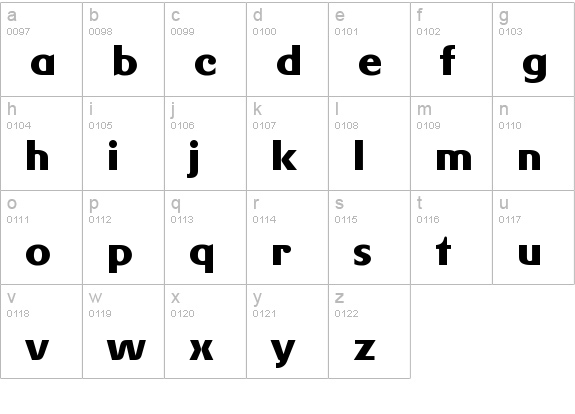
Gerstner Original Bold is a strong, high-contrast variant in the Gerstner typeface family \xE2\x80\x94 well suited to headlines, attention-grabbing titles, and strong calls-to-action.
Gerstner Original Bold font is a modern and stylish typeface that exudes confidence and sophistication. With its strong and bold letterforms, this font is perfect for making a statement in your designs. The clean lines and sharp edges of Gerstner Original Bold give it a timeless appeal that makes it suitable for a wide range of projects, from branding to editorial design. What sets Gerstner Original Bold apart is not only its striking aesthetics but also the fact that it is available for free download at FontsMarket.com. This means that you can easily access and use this high-quality font in your projects without any cost involved. Whether you are a designer looking to add a touch of elegance to your work or a business owner in need of a distinctive font for your branding, Gerstner Original Bold is a versatile and accessible choice that will elevate your designs to the next level.